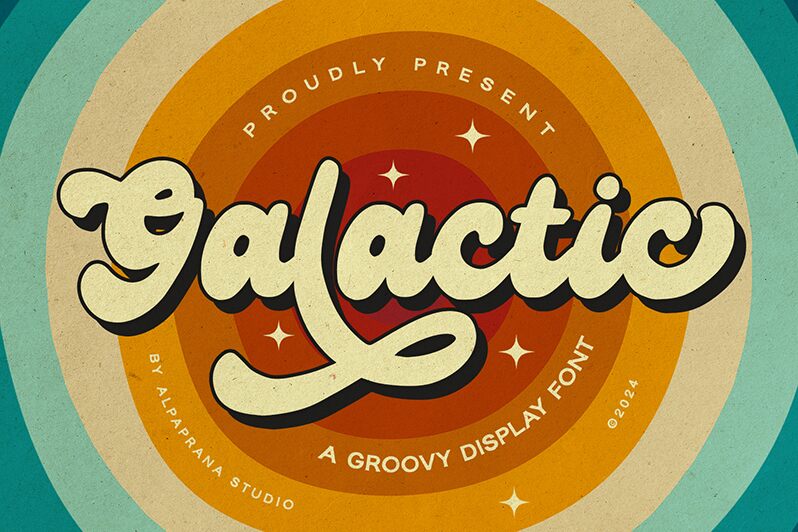
Galactic
Galactic font by Alpaprana Studio is a bold brush script with cursive calligraphic strokes and expressive bends. The energetic atmosphere reminiscences a retro style from the 70s which brings a strong character to your wording. Letters appear with wavering outlines, uneven thicknesses, and oversize styles relative to their proportions.
Get Galactic for free as your next display choice for posters, advertising design, packaging, branding projects, signage design, or book covers. Websites that wish to implement retro elements in their interface can use it in navigation buttons or section headers too.